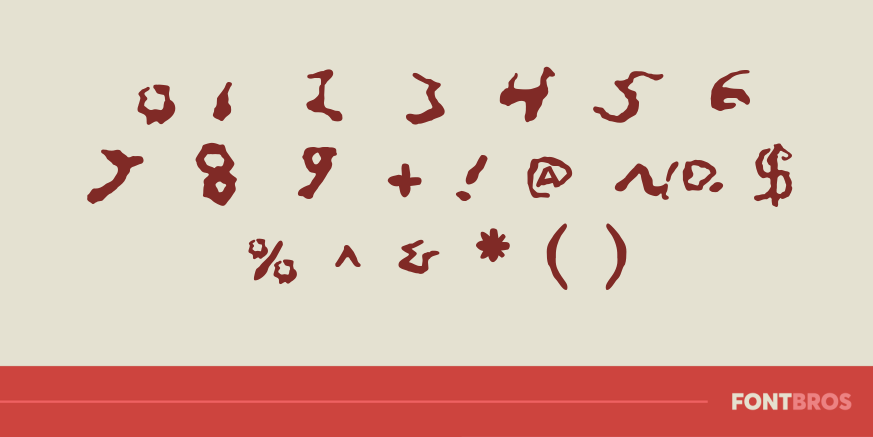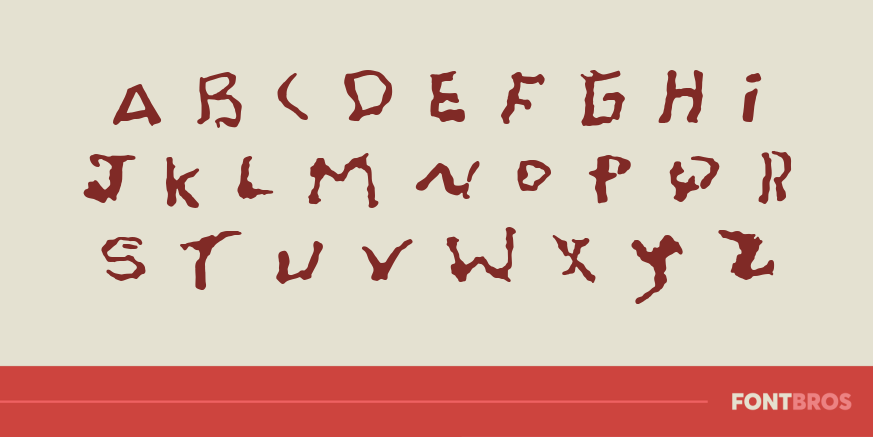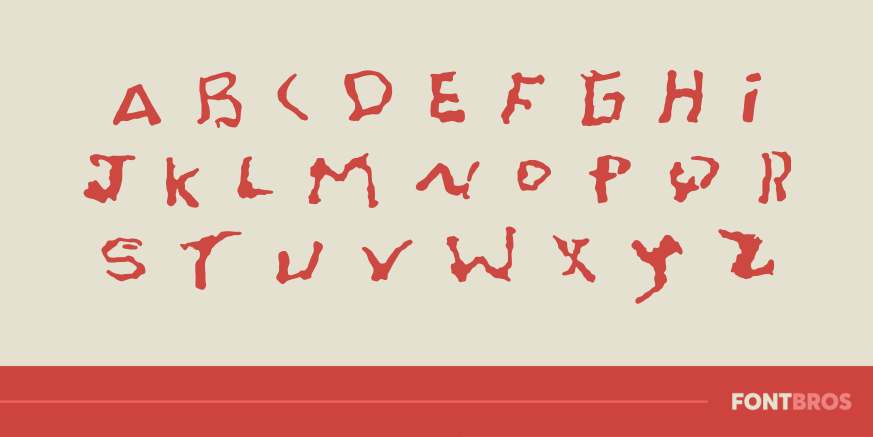
Font-On-A-Grain
Font Family by Font Diner
We tracked down one of the most skilled artisans we could find that was a master of Mexico's most ancient art… 'Esscribe Poco Alphabetico con Blanco Arroz